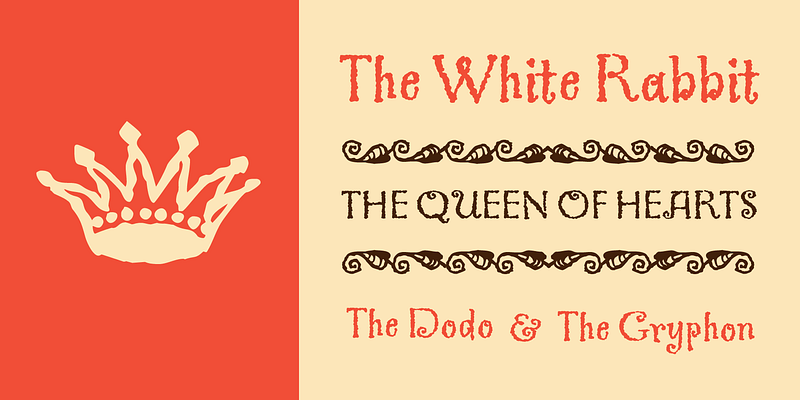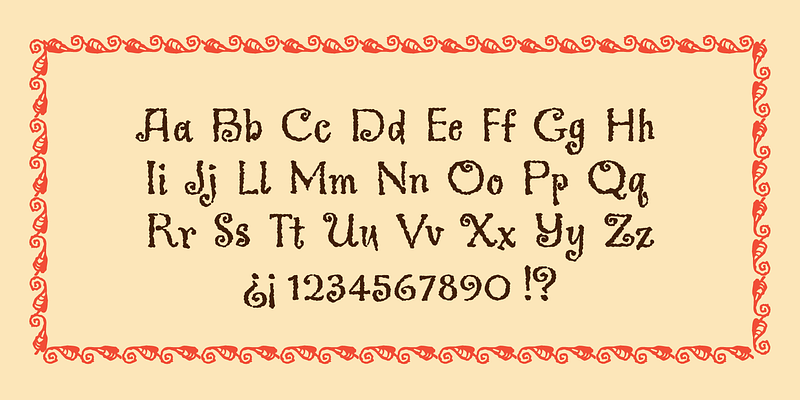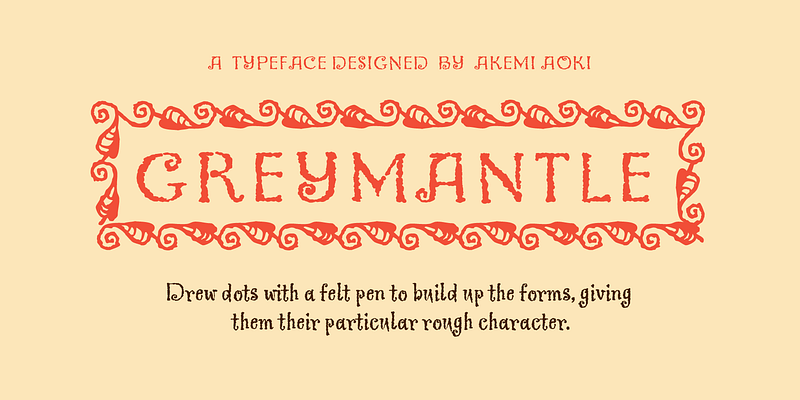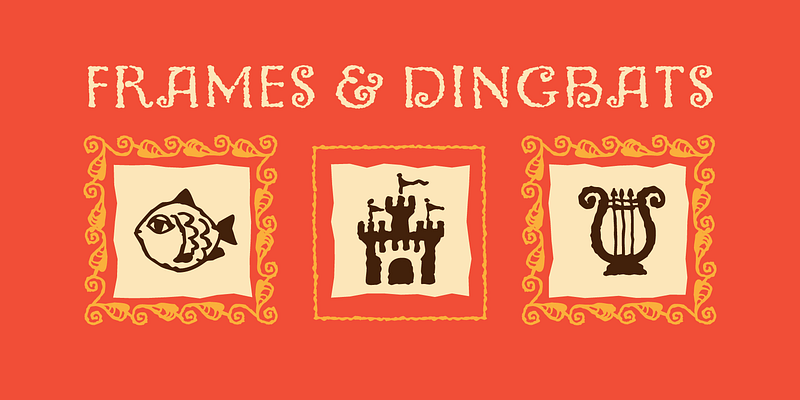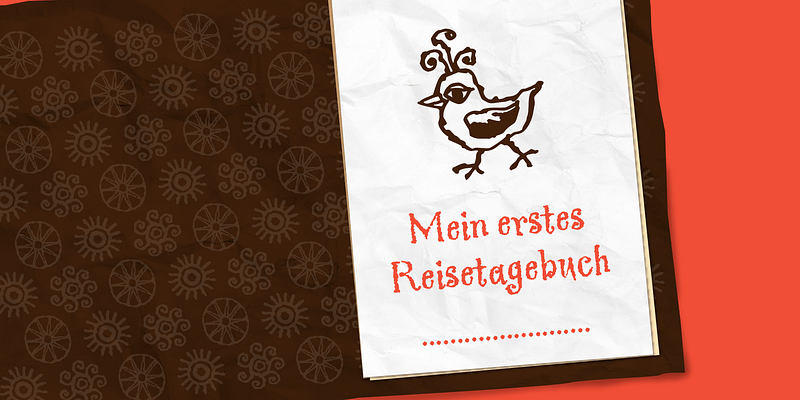
Kanna Aoki had fairy tales in mind when she designed MVB Greymantle. She drew dots with a felt pen to build up the forms, giving them their particular rough character. The “Extras” font contains a set of whimsical illustrations, including a portrait of Greymantle—her 18-pound cat, a set of curly initial caps, and border parts.
MVB Greymantle has been spotted on numerous children’s books, in magazines, in salad dressing advertisements, and on food packaging.